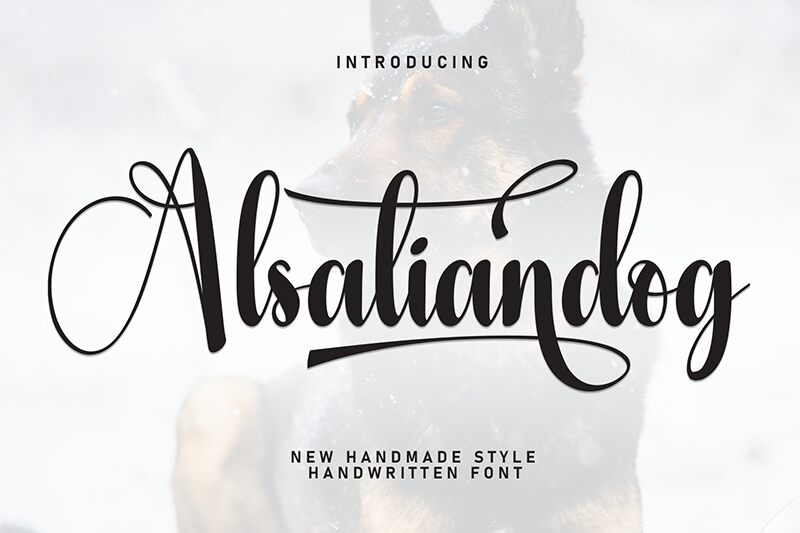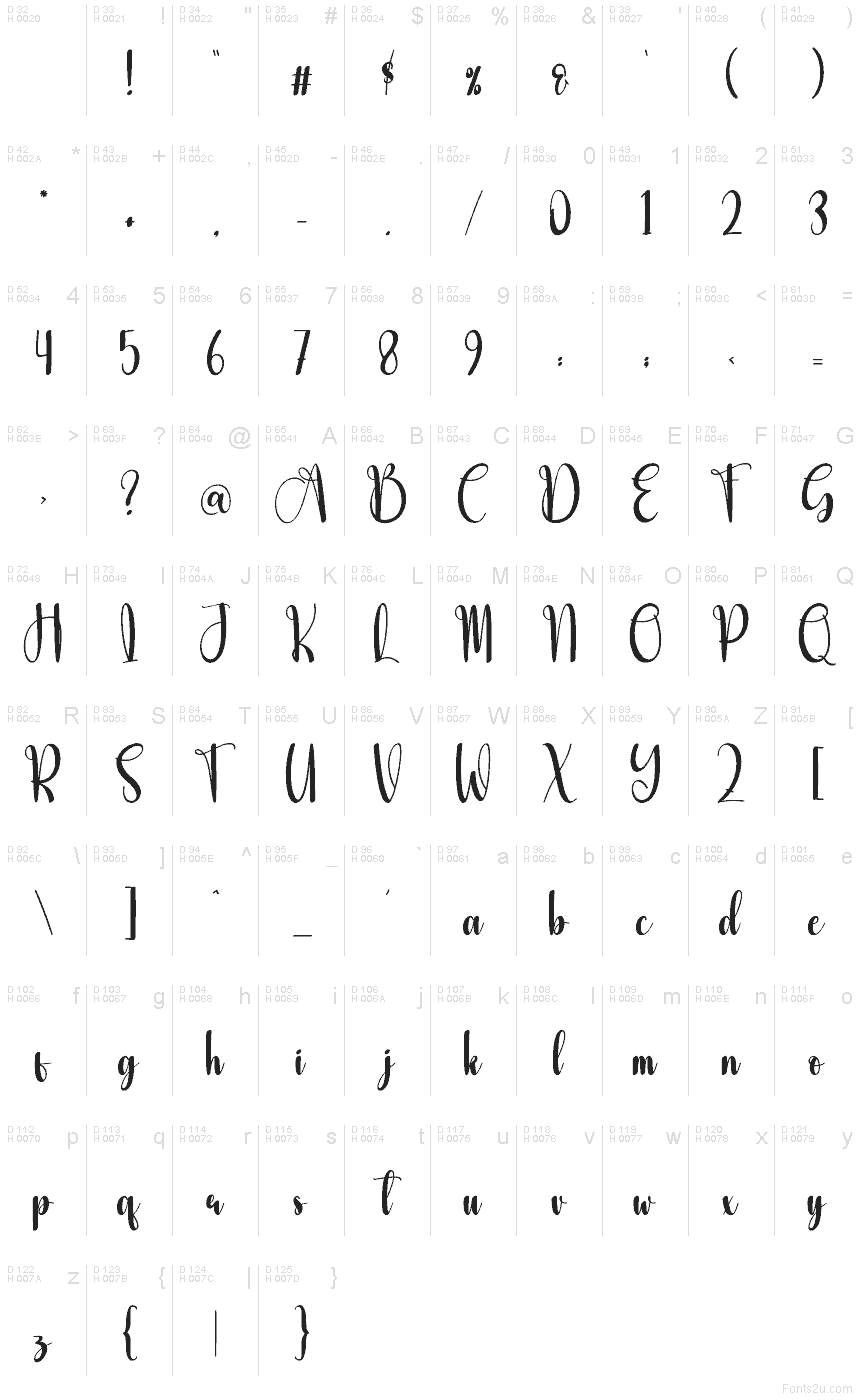
Alsatiandog
Alsatiandog font by Scratchones is a free calligraphy font that exquisitely balances elegance and modern-retro aesthetics. Featuring an inviting, flowing design with an artistic flair, this typeface commands a sophisticated appearance in any project.